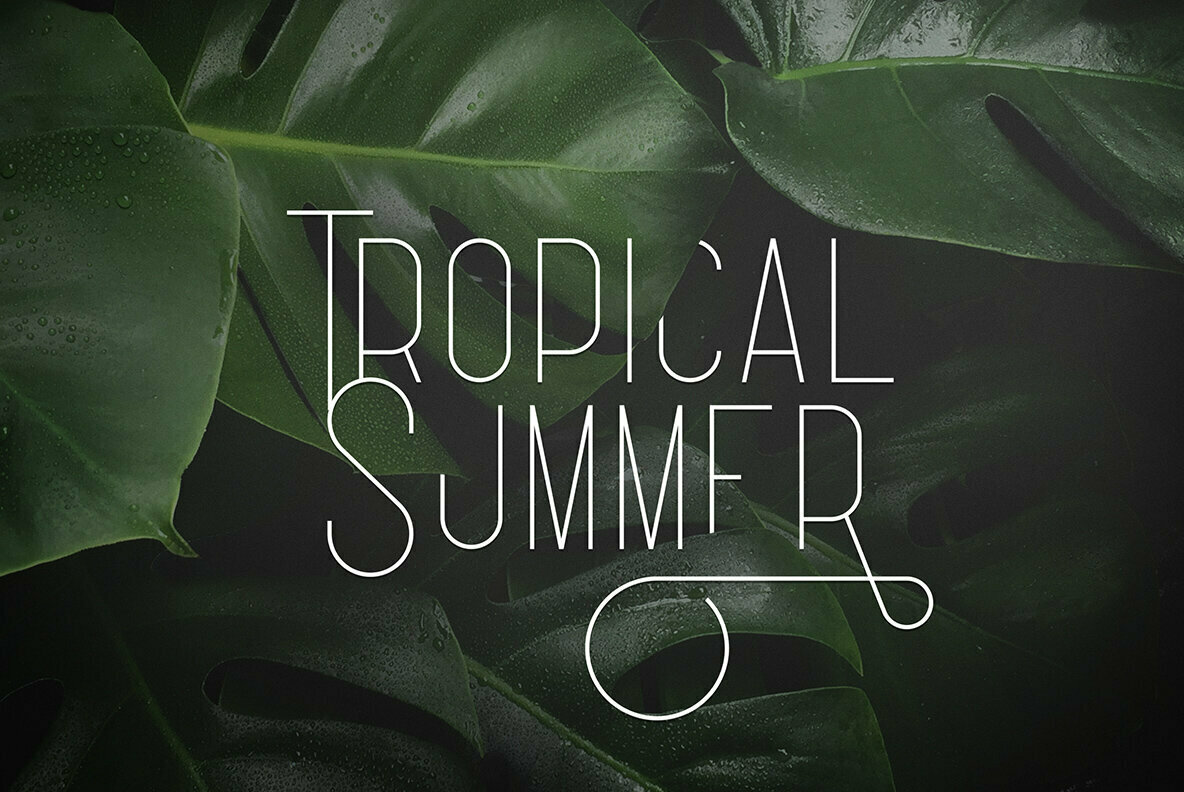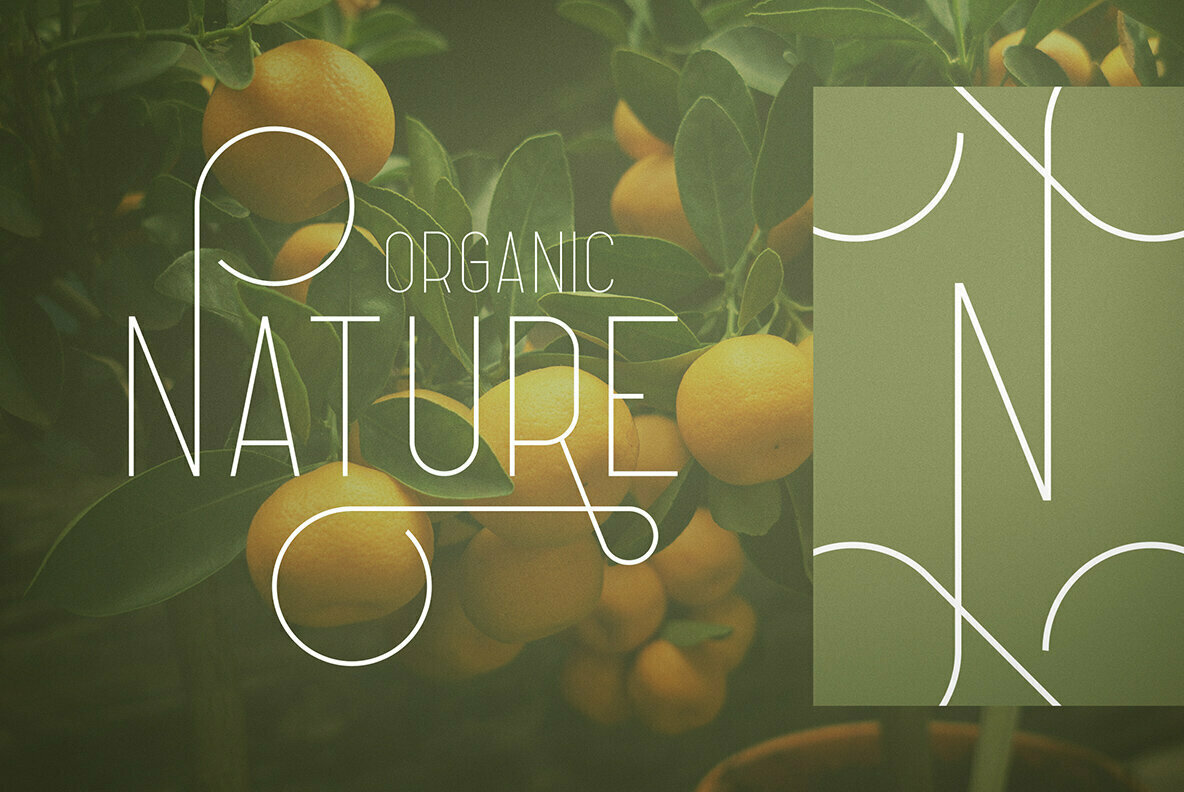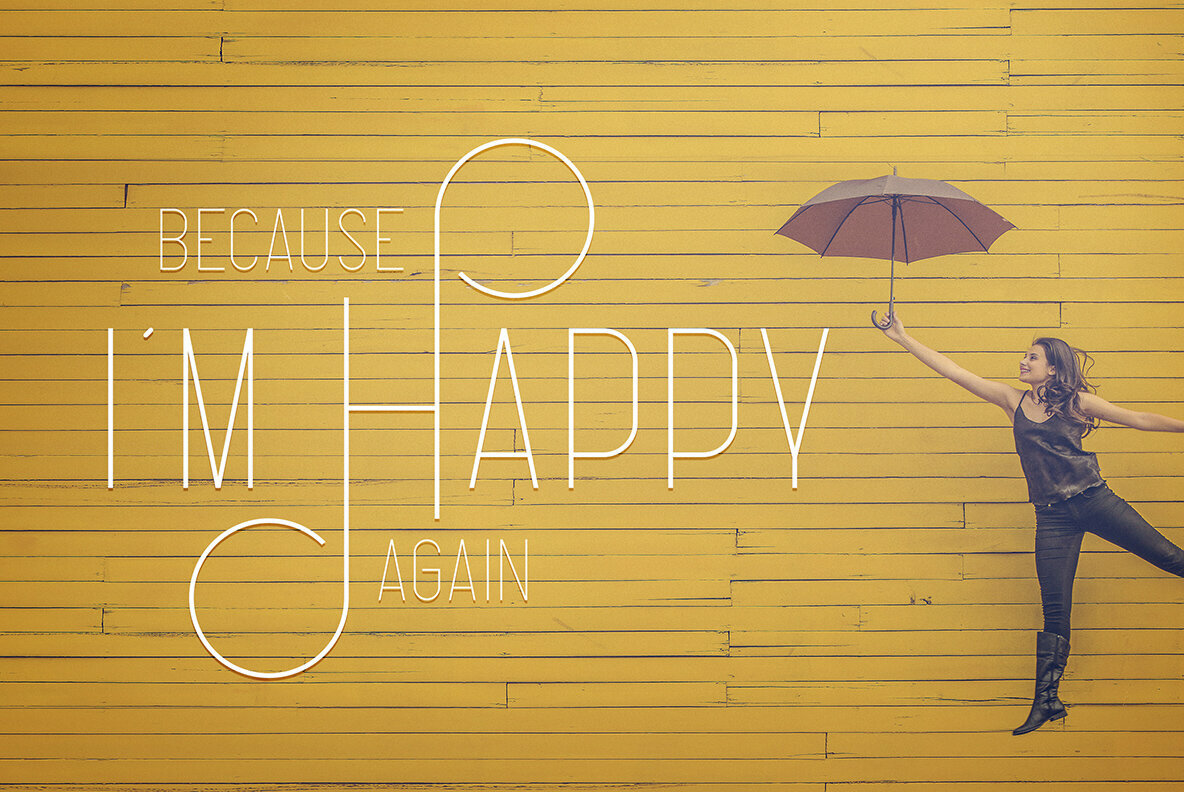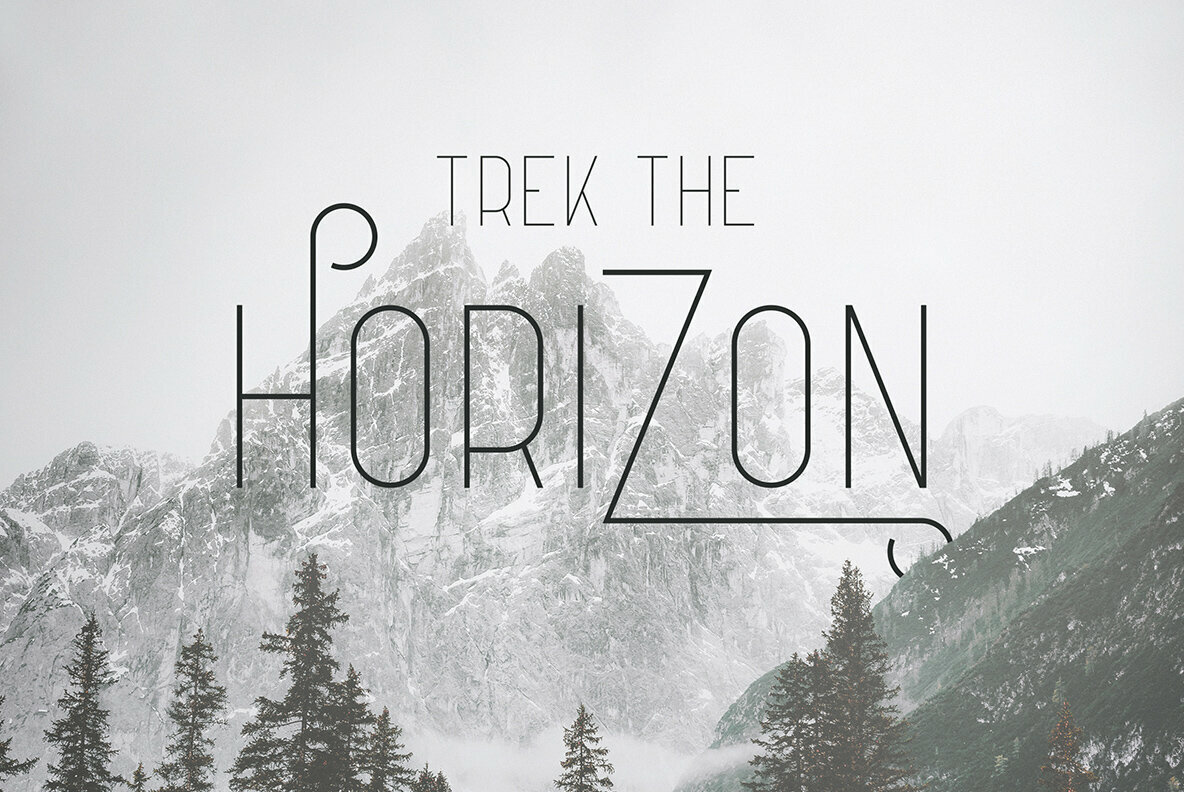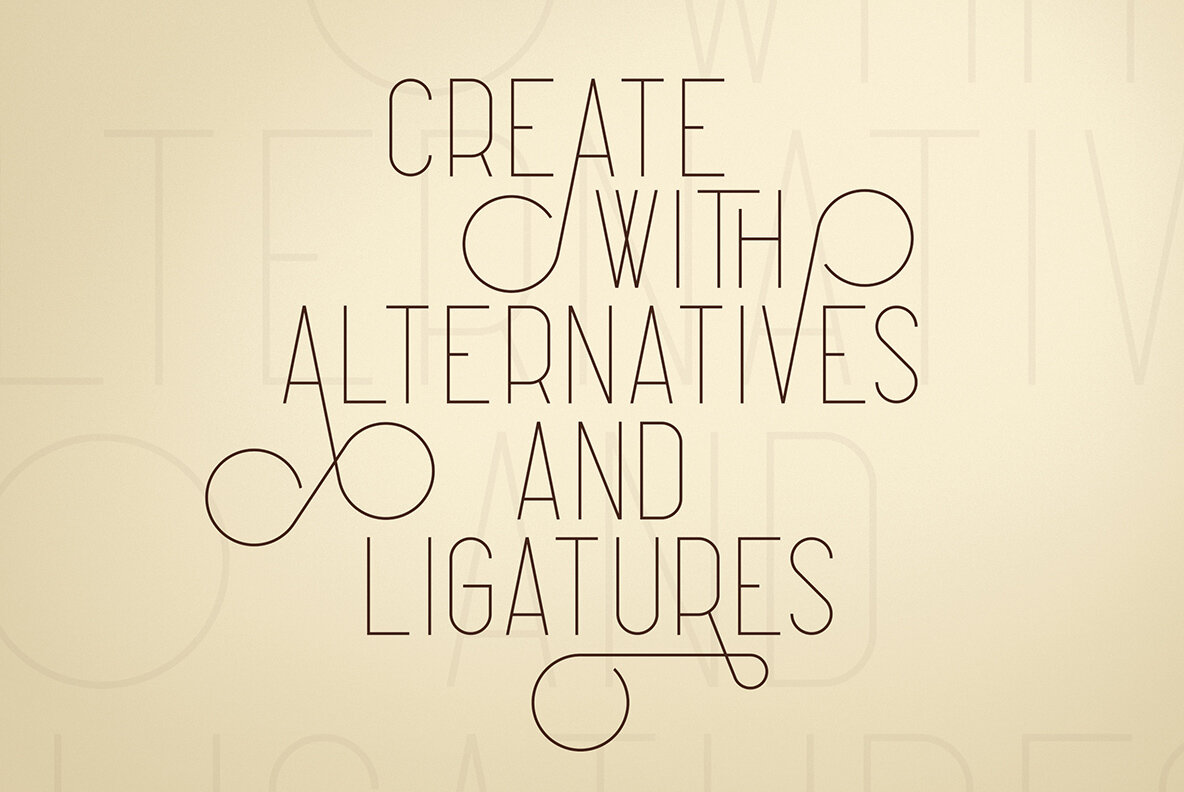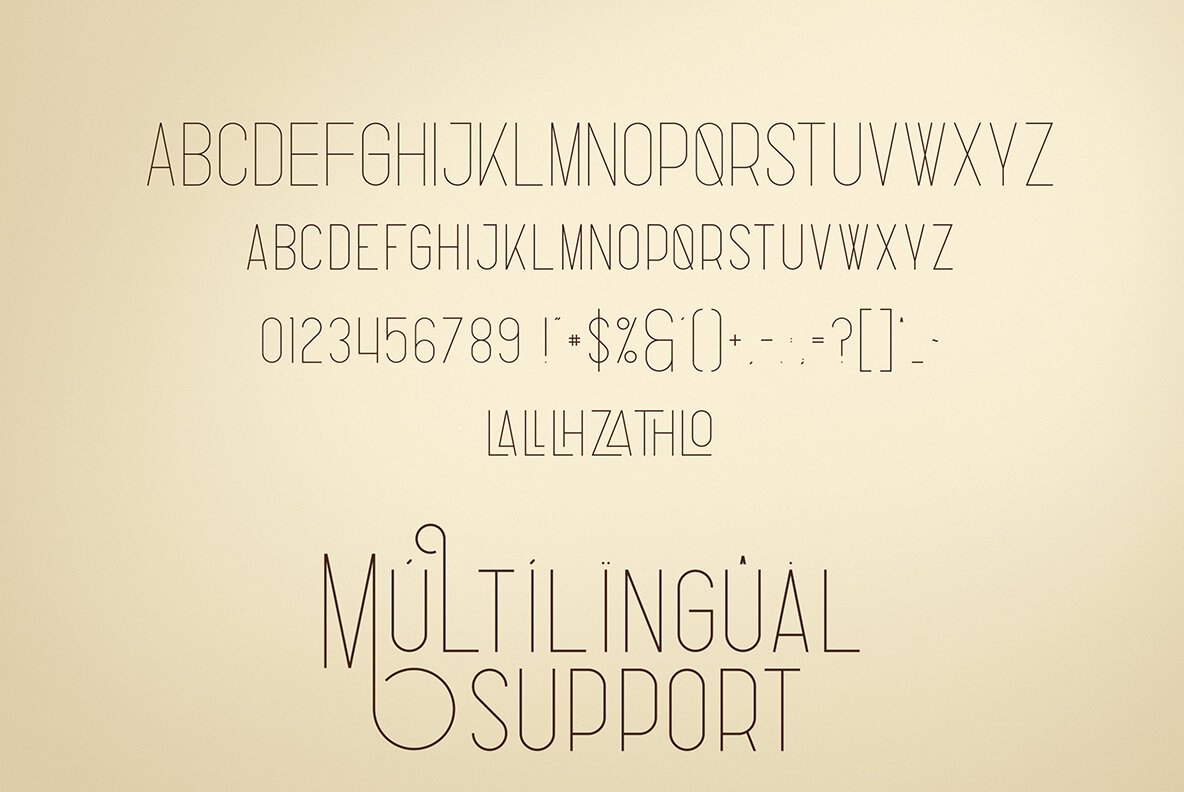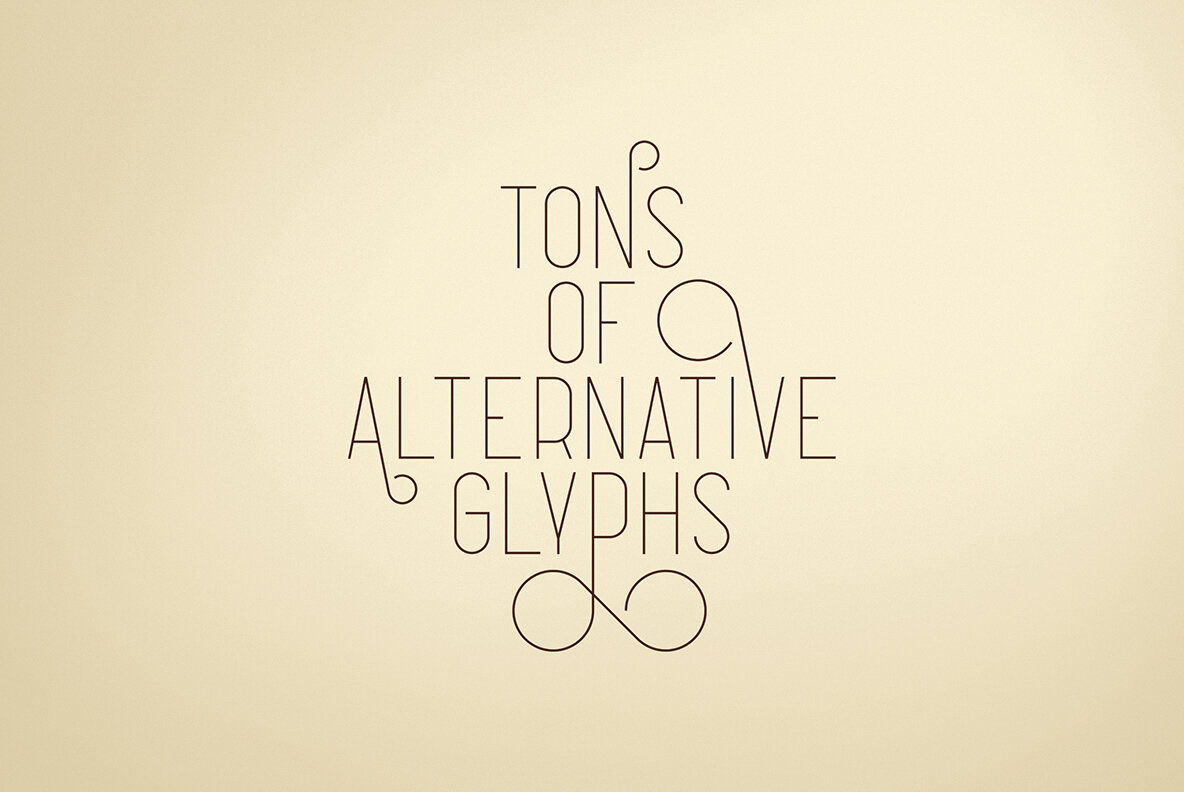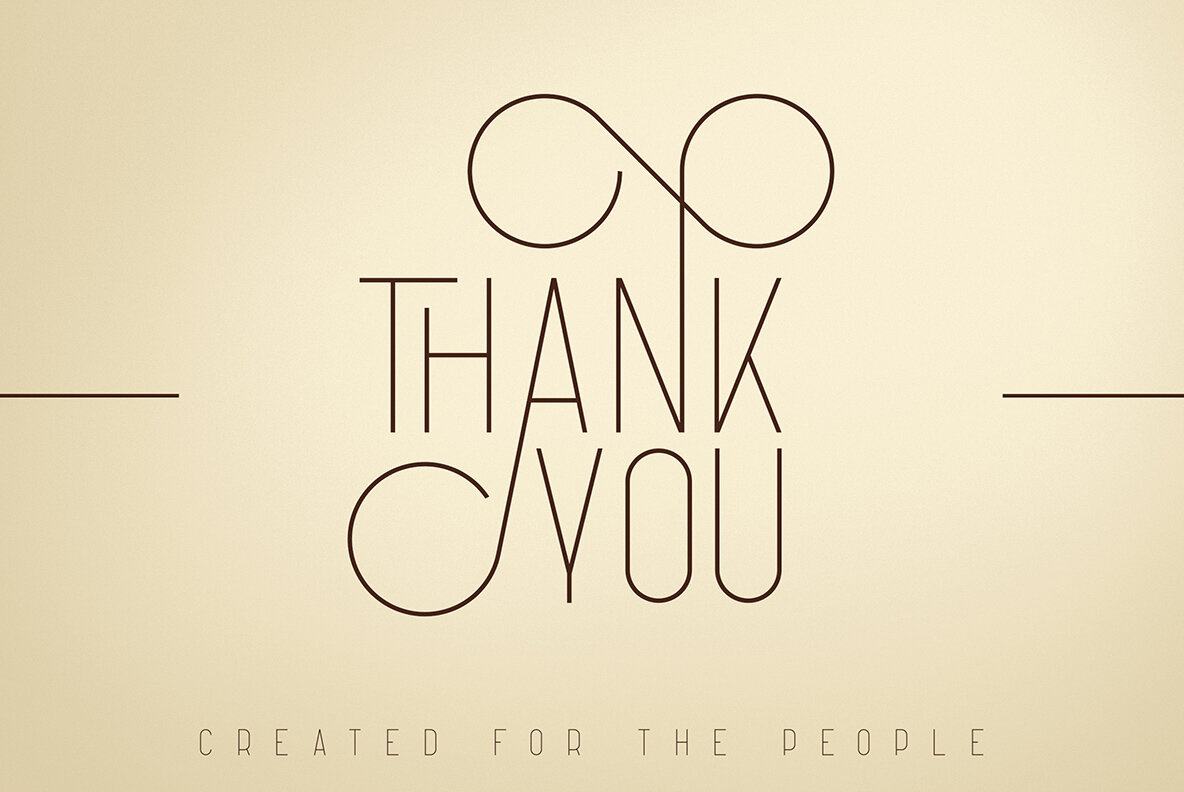
Fabulist Display Font: Versatile and Modern
The Fabulist font, crafted by VP Creative Shop, embodies a modern aesthetic while offering an abundance of alternative glyphs, ligatures, and extensive multilingual support. This versatile typeface not only captivates with its clean lines but also excels in both large and small applications.
Ideal for diverse design needs, Fabulist enhances branding projects, homeware designs, and product packaging. It also lends a sophisticated touch to magazine headers and stylish text overlays on background images.
• Uppercase, Lowercase, Numeral, Punctuation & Symbol
• Regular
• Alternative Glyphs
• Ligatures
• Multilingual Support